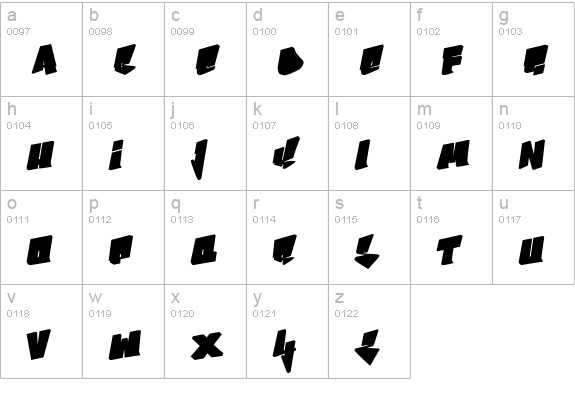
Bboy Font Details
Bboy font is a dynamic and energetic typeface that captures the spirit of urban dance culture. With its bold, graffiti-inspired letterforms and stylish flair, Bboy font is perfect for adding a touch of street style to your designs. Whether you're creating posters, flyers, or social media graphics, this font is sure to make a statement. Best of all, Bboy font is completely free to download at FontsMarket.com. This means you can easily incorporate this eye-catching typeface into your projects without breaking the bank. So go ahead and unleash your creativity with Bboy font today!